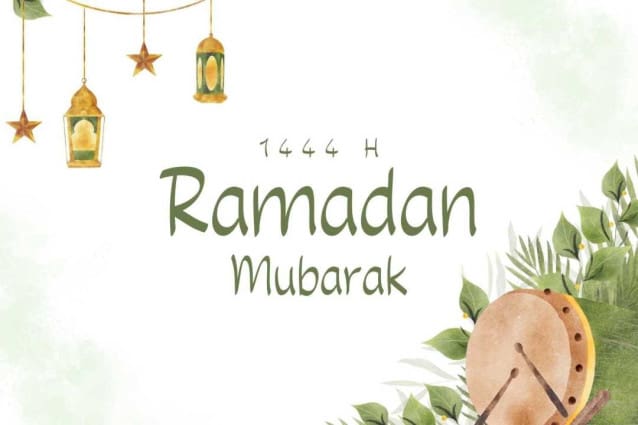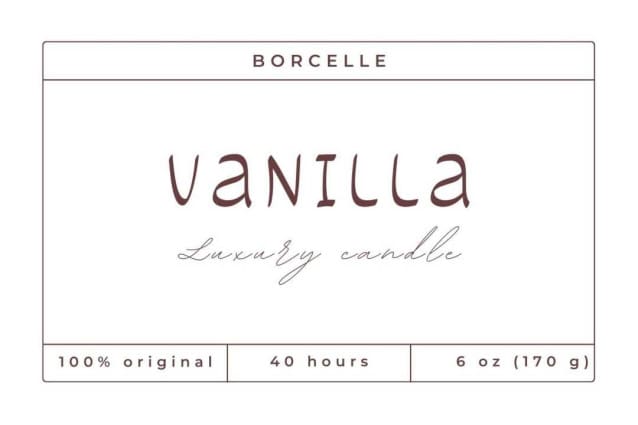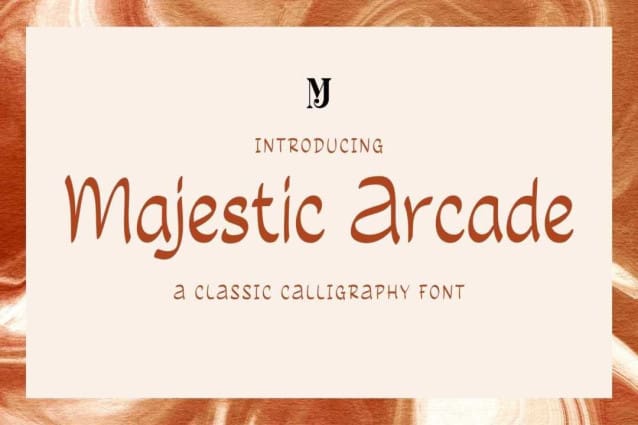
Majestic Arcade Font
Majestic Arcade Font, perfectly fit for branding, logo, wedding things, greeting cards, fashion, lookbook, marketing promotion, anytime you want to look fancy elegant but still casual.